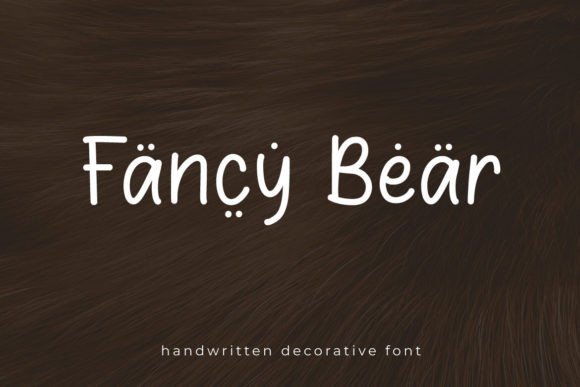
Journey into a world of enchantment with Fancy Bear Font, an extraordinary creation of Mightyfire, designed to bring life to your digital dreams. This stunning script font dances with elegance and playfulness, captivating hearts with its warm and inviting charm.
Indulge in the whimsical nature of Fancy Bear, a font that is as unique as a child's imagination. Its organic and free-flowing strokes mimic the innocent handwritings of little ones, evoking a sense of nostalgia and heartwarming memories.
Step into a realm of limitless creativity, where Fancy Bear Font becomes your trusty companion. With its versatile nature, this font adapts effortlessly to a diverse range of projects, from children's books to playful branding, from joyful invitations to enchanting social media posts. Let Fancy Bear be the magical touch that transforms your designs into captivating masterpieces.
Embrace the power of Fancy Bear Font to connect with audiences of all ages, leaving an indelible mark on their hearts. Its friendly and approachable personality shines through every character, creating an emotional resonance that will leave your audience smitten.
Dive into the depths of Fancy Bear's character set and discover a treasure trove of OpenType features that will ignite your imagination and elevate your designs to new heights. Experiment with stylistic alternates, ligatures, and swashes to add an extra layer of charm and personality to your creations.
With Fancy Bear Font at your fingertips, you'll never run out of inspiration. Its boundless potential will keep you enthralled, pushing the boundaries of creativity and leaving your audience spellbound.